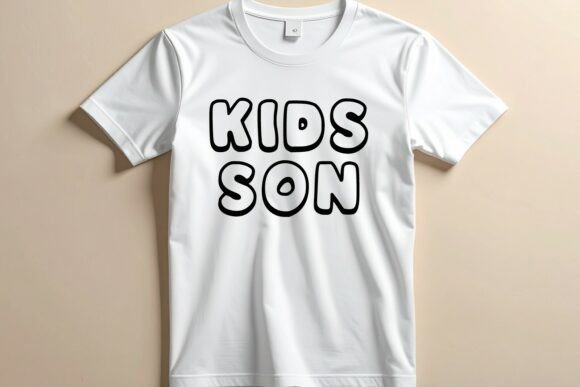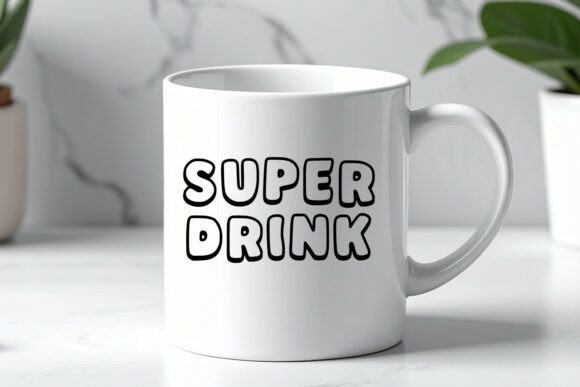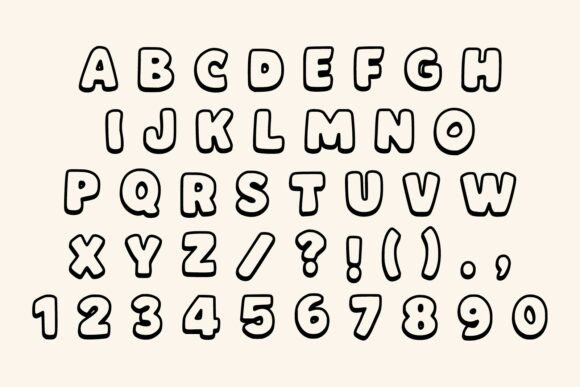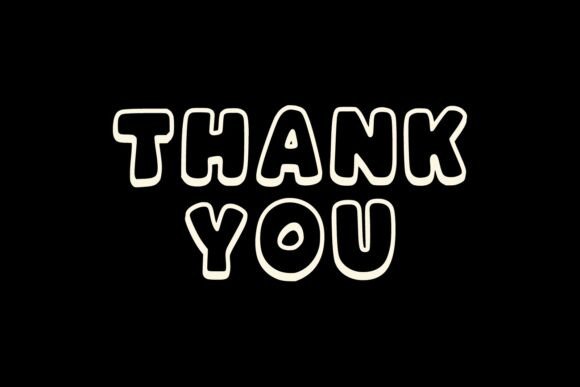
Cutes Outline Font: Add a Playful Touch to Your Designs
Are you looking for a font that can add a fun and friendly touch to your designs? Look no further than Cutes Outline Font! This playful cartoon-style font features bold, rounded letterforms with a soft outline look that’s perfect for kids-themed designs, posters, branding, packaging, t-shirts, logos, social media graphics, and creative craft projects.
What is Cutes Outline Font?
Cutes Outline Font is a modern and cheerful font that’s designed to bring a smile to your face. Its bold and rounded letterforms are perfect for creating eye-catching designs that are sure to grab attention. The soft outline look gives the font a friendly and approachable feel, making it perfect for designs that need to appeal to a younger audience.
Key Features of Cutes Outline Font
- Playful and Cartoon-Style: Cutes Outline Font features a playful and cartoon-style design that’s perfect for kids-themed designs and creative craft projects.
- Bold and Rounded Letterforms: The font features bold and rounded letterforms that are easy to read and add a fun touch to any design.
- Soft Outline Look: The soft outline look gives the font a friendly and approachable feel that’s perfect for designs that need to appeal to a younger audience.
- Multipurpose: Cutes Outline Font is perfect for a wide range of design projects, including posters, branding, packaging, t-shirts, logos, social media graphics, and creative craft projects.
Uses for Cutes Outline Font
Cutes Outline Font is a versatile font that can be used for a wide range of design projects. Here are some ideas to get you started:
- Kids-Themed Designs: Cutes Outline Font is perfect for kids-themed designs, such as children’s books, nursery decor, and kids’ party invitations.
- Posters and Flyers: The font is great for creating eye-catching posters and flyers for events, promotions, and products.
- Branding and Packaging: Cutes Outline Font can be used to create fun and friendly branding and packaging designs that appeal to a younger audience.
- T-Shirts and Merchandise: The font is perfect for creating fun and playful designs for t-shirts, hoodies, and other merchandise.
- Logos and Icons: Cutes Outline Font can be used to create fun and modern logos and icons for businesses and brands.
- Social Media Graphics: The font is great for creating eye-catching social media graphics, such as Facebook posts, Instagram stories, and Twitter headers.
- Creative Craft Projects: Cutes Outline Font can be used for a wide range of creative craft projects, such as scrapbooking, card making, and DIY decor.
Why Choose Cutes Outline Font?
There are many reasons why you should choose Cutes Outline Font for your next design project. Here are a few:
- Unique and Playful Design: Cutes Outline Font features a unique and playful design that’s sure to grab attention.
- Easy to Read: The font is easy to read, even at small sizes, making it perfect for a wide range of design projects.
- Versatile: Cutes Outline Font is a versatile font that can be used for a wide range of design projects.
- Modern and Cheerful: The font has a modern and cheerful feel that’s perfect for designs that need to appeal to a younger audience.
Cutes Outline Font is a playful and modern font that’s perfect for designers and crafters who want to add a fun and friendly touch to their designs. With its bold and rounded letterforms, soft outline look, and versatile design, this font is sure to become a favorite in your design arsenal. So why wait? Download Cutes Outline Font today and start creating fun and eye-catching designs that are sure to grab attention!